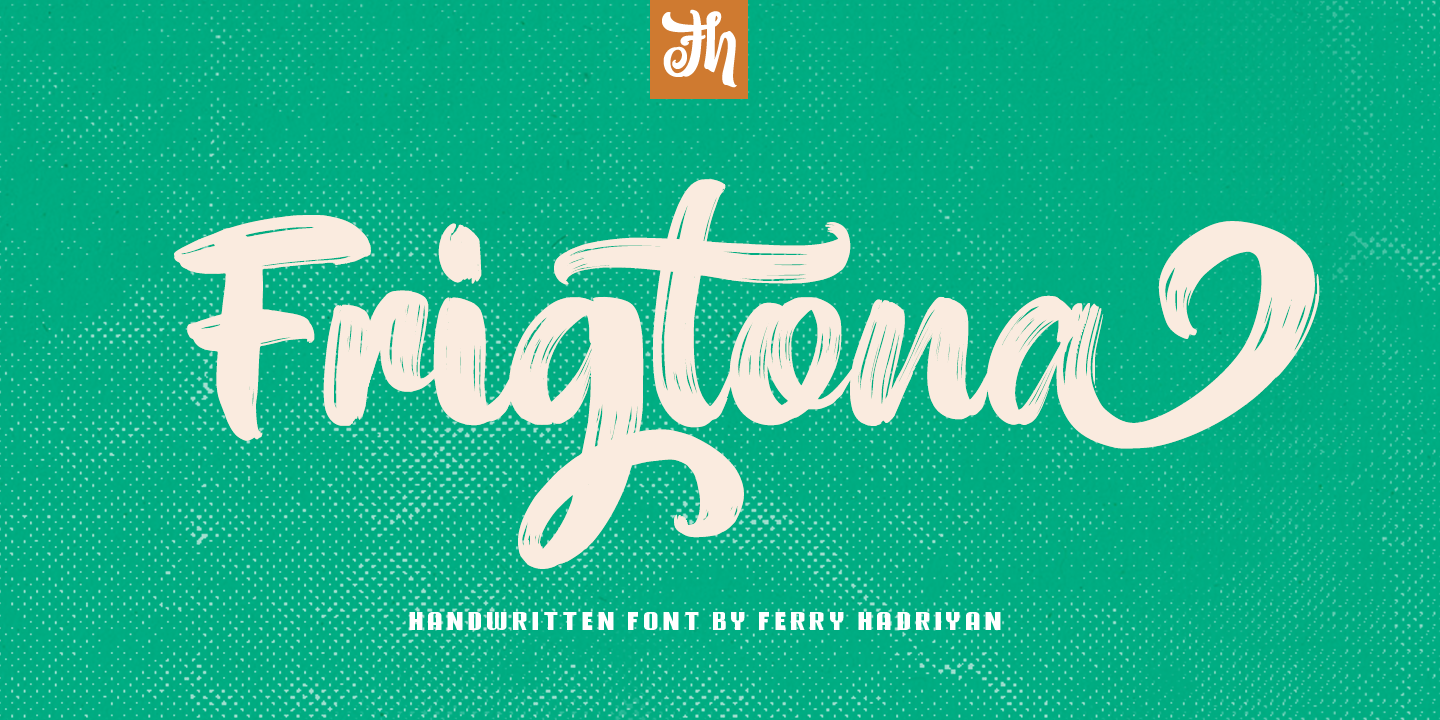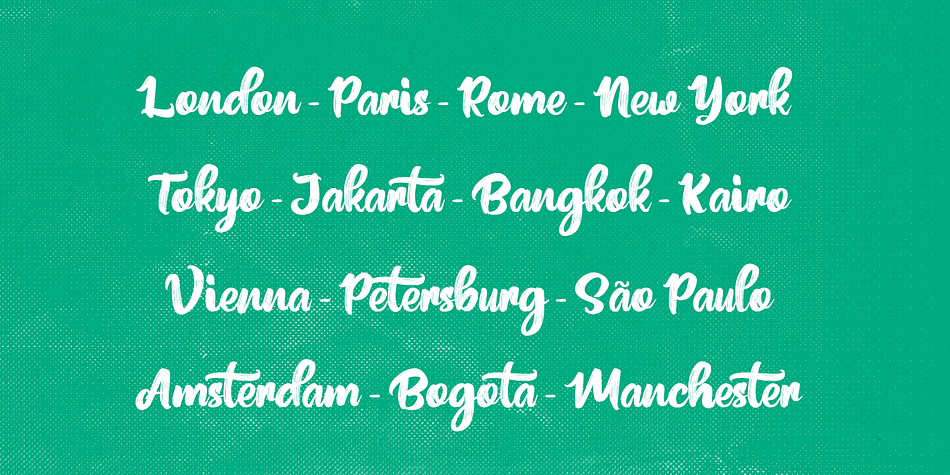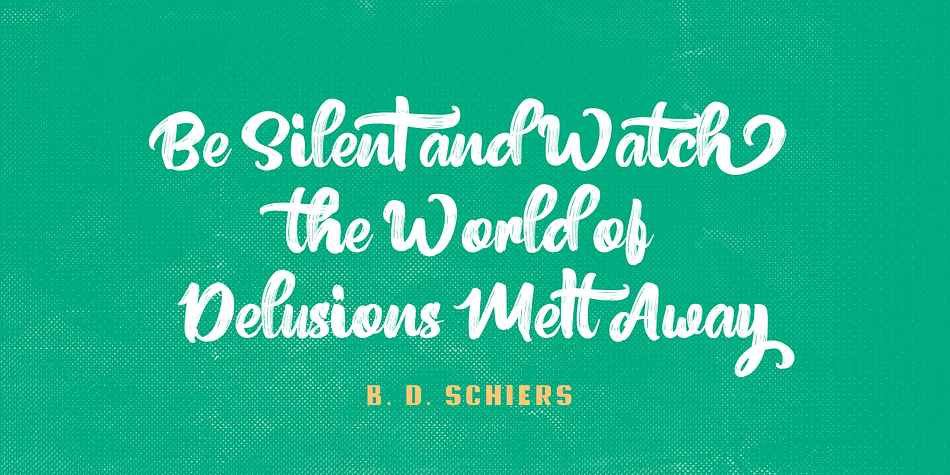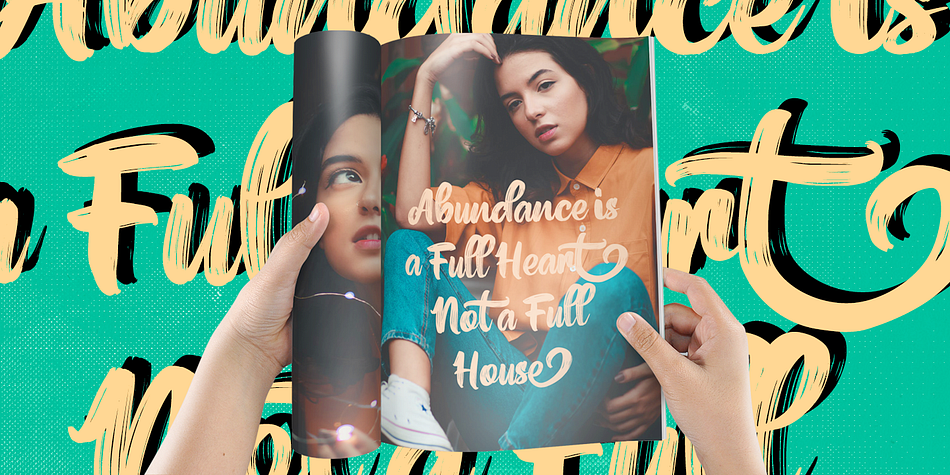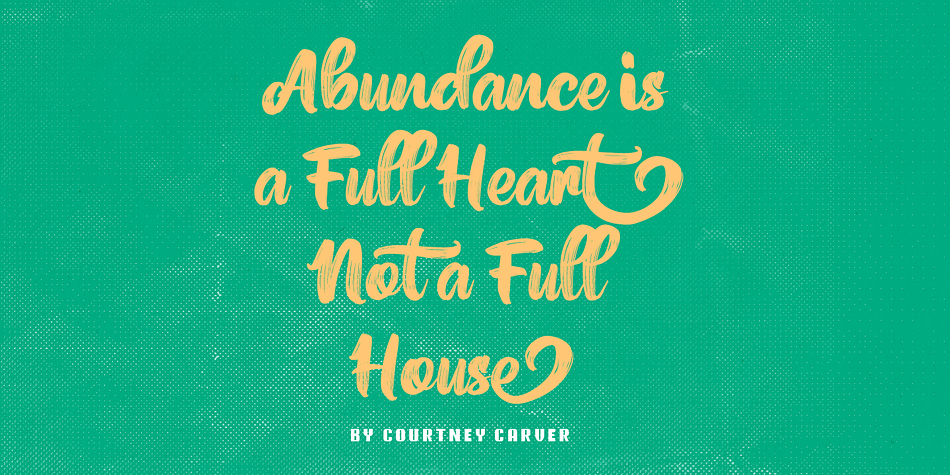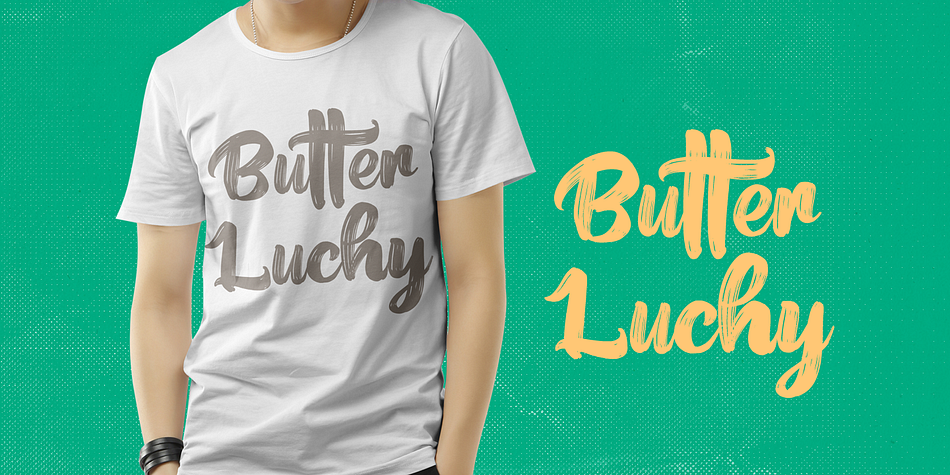
Designed by Ferry Hadriyan, Frigtona is a script font published by feydesign.
Frigtona - Handwritten Font
Frigtona is script font with handlettering brush style, with opentype feature include of the font. Suitable for design, element design, wedding, event, t-shirt, logo, badges, sticker, and awesome work, etc…
Feature Of The Font:
- All Standard Character, Symbol, Multilanguage, Ligature, Stylistic Set, and Swashes.
- Unique style fonts